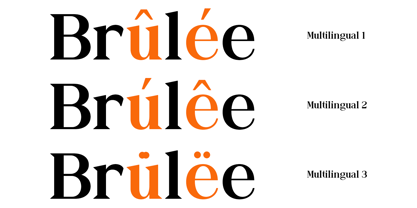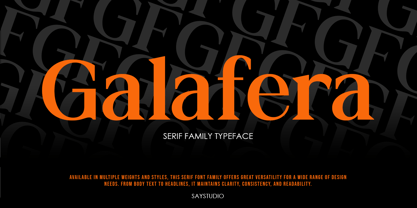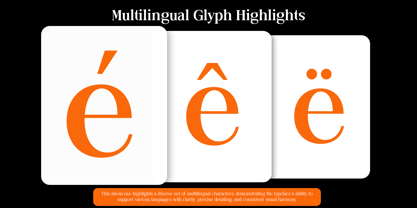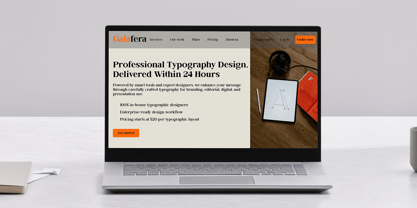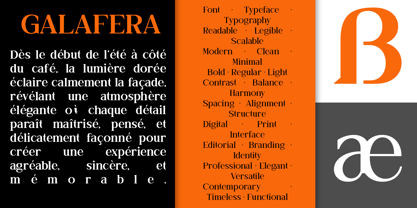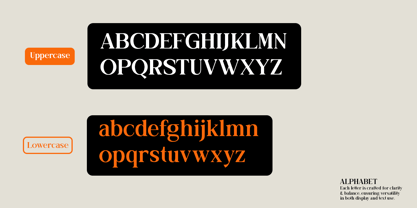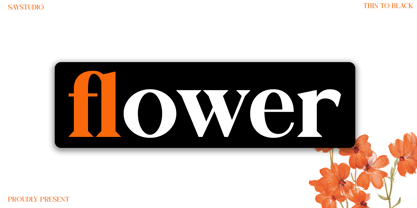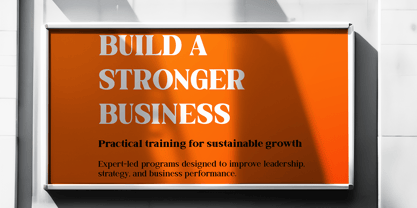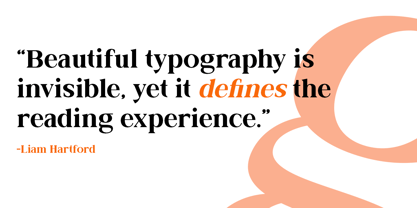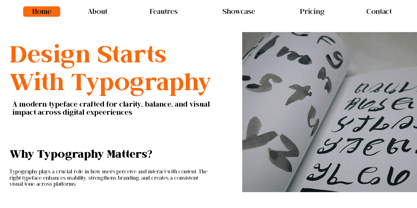
Galafera
by Say Studio
The Galafera Font Family was designed by Mussyayin and published by Say Studio. Galafera contains 12 styles and family package options. More about this family
Galafera is a sophisticated serif typeface family designed to provide a refined, modern, and timeless visual identity. With its balanced proportions, smooth serif details, and strong contrast, Galafera exudes confidence and sophistication across various design applications. This font is perfectly suited for branding, logos, editorial layouts, fashion design, magazines, headlines, and premium visual projects that demand a classy and professional appearance. Its versatility ensures it performs beautifully in both large display sizes and smaller text settings, making it ideal for both print and digital use. Galafera is crafted for designers seeking a modern serif font with a classic touch, offering a harmonious blend of contemporary aesthetics and traditional elegance. Thank You! Have a Good Day, Saystudio
Designers: Mussyayin
Foundry: Say Studio